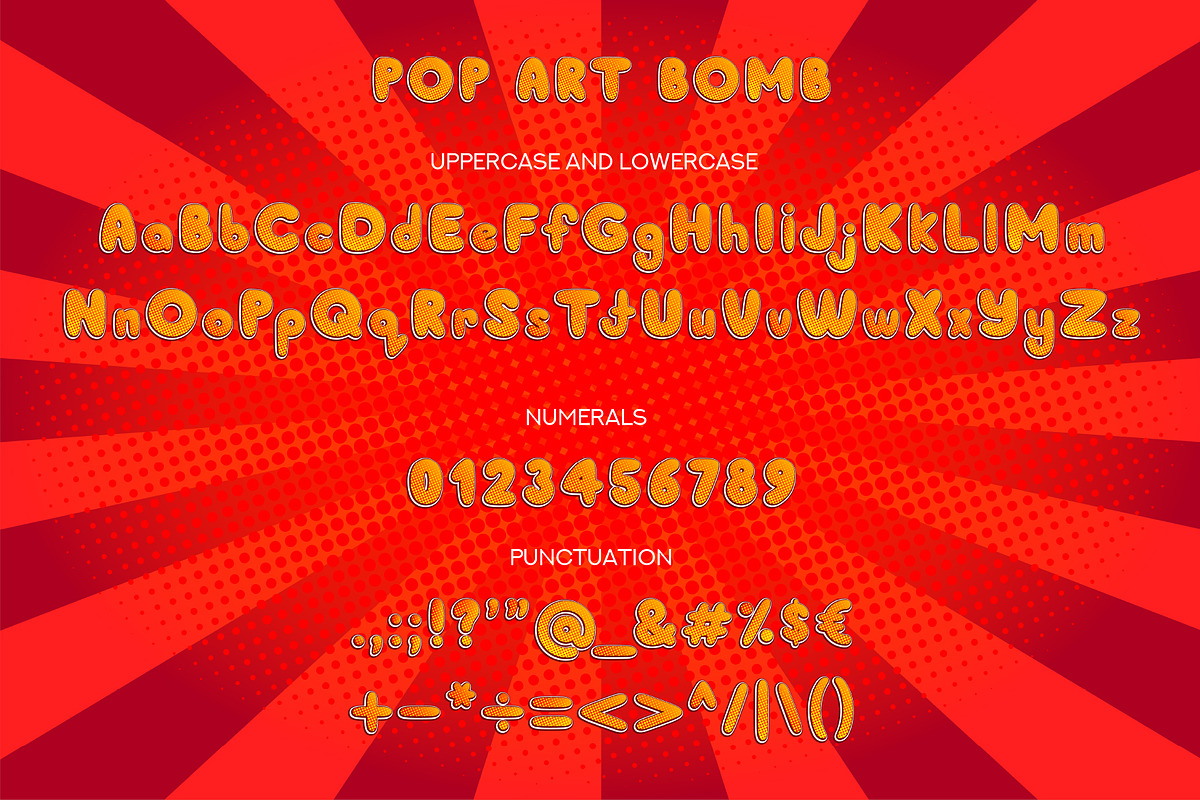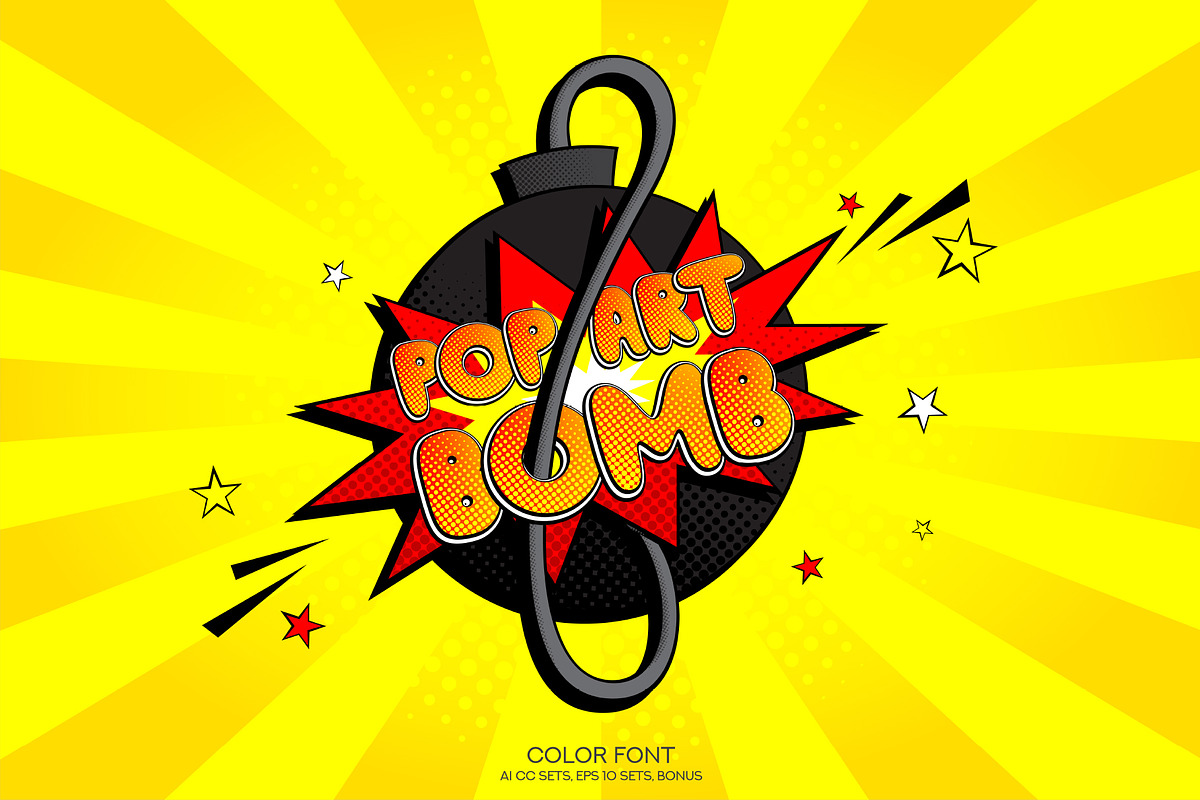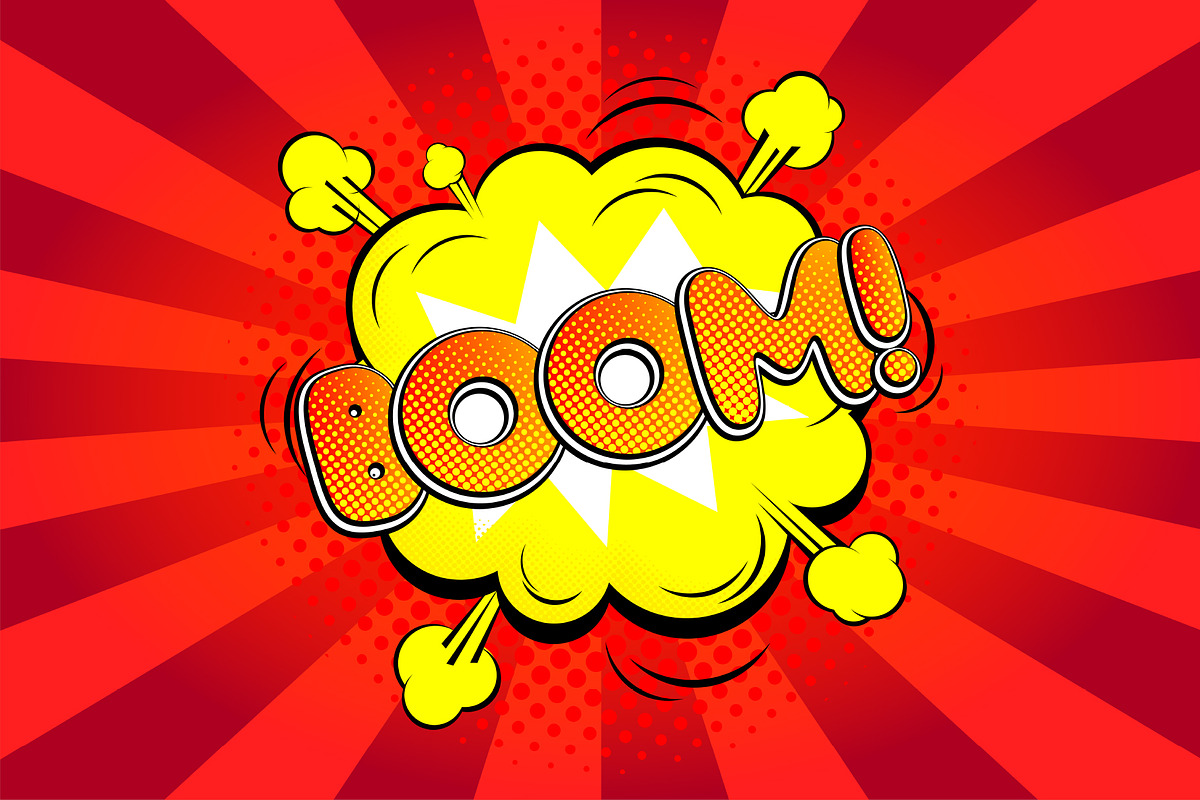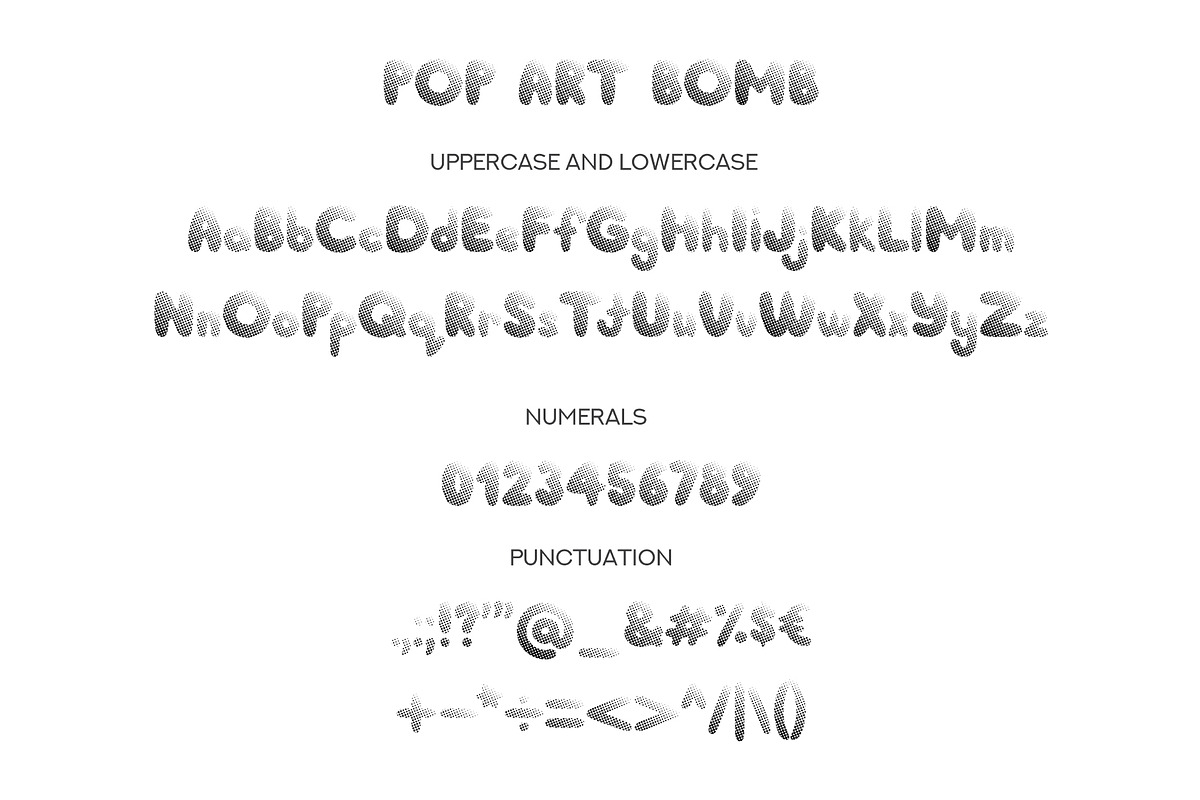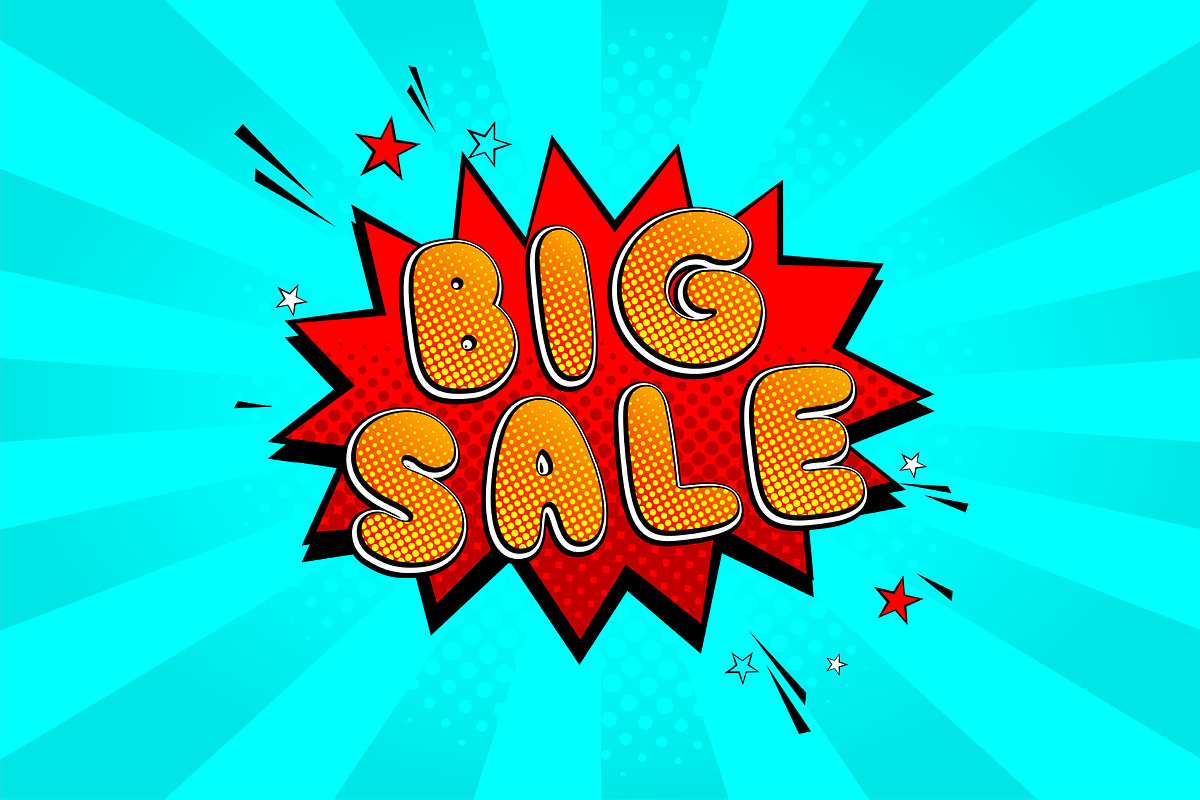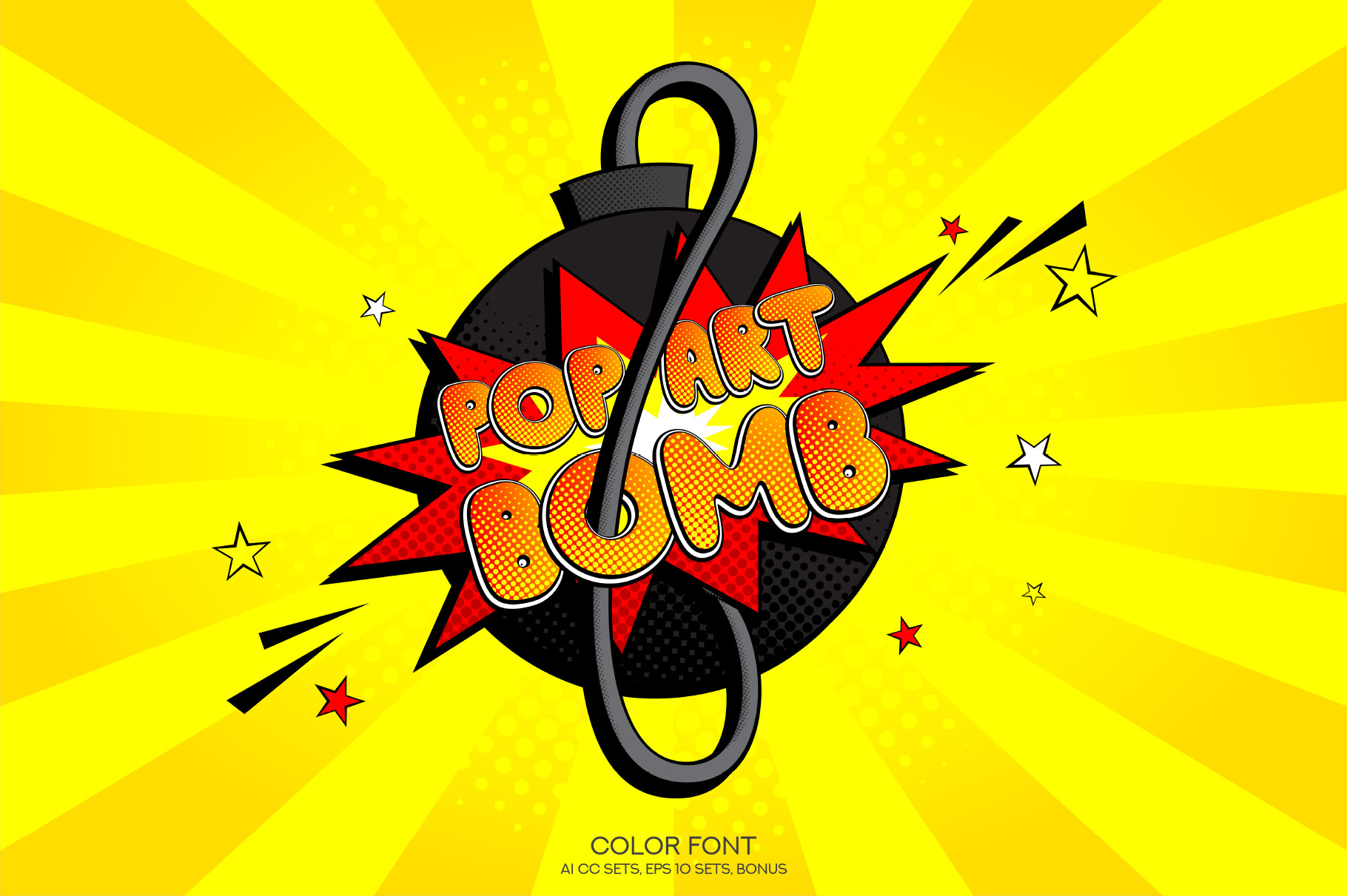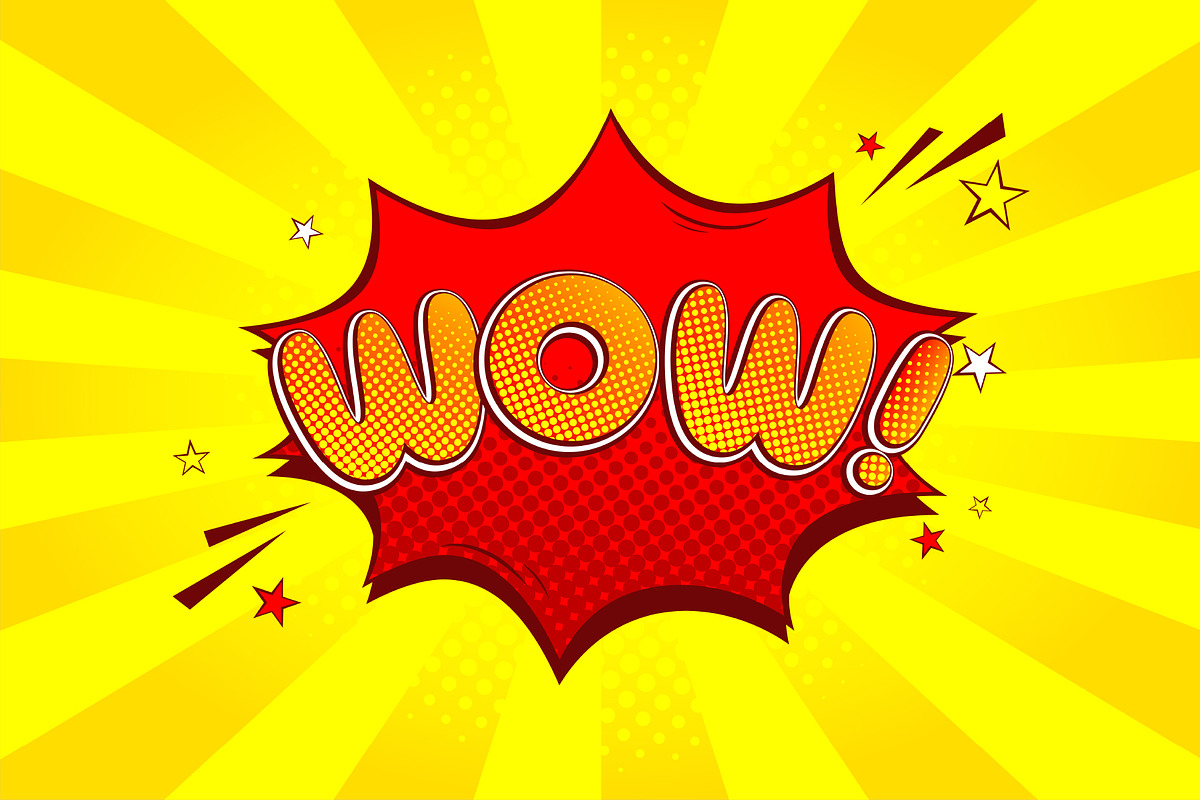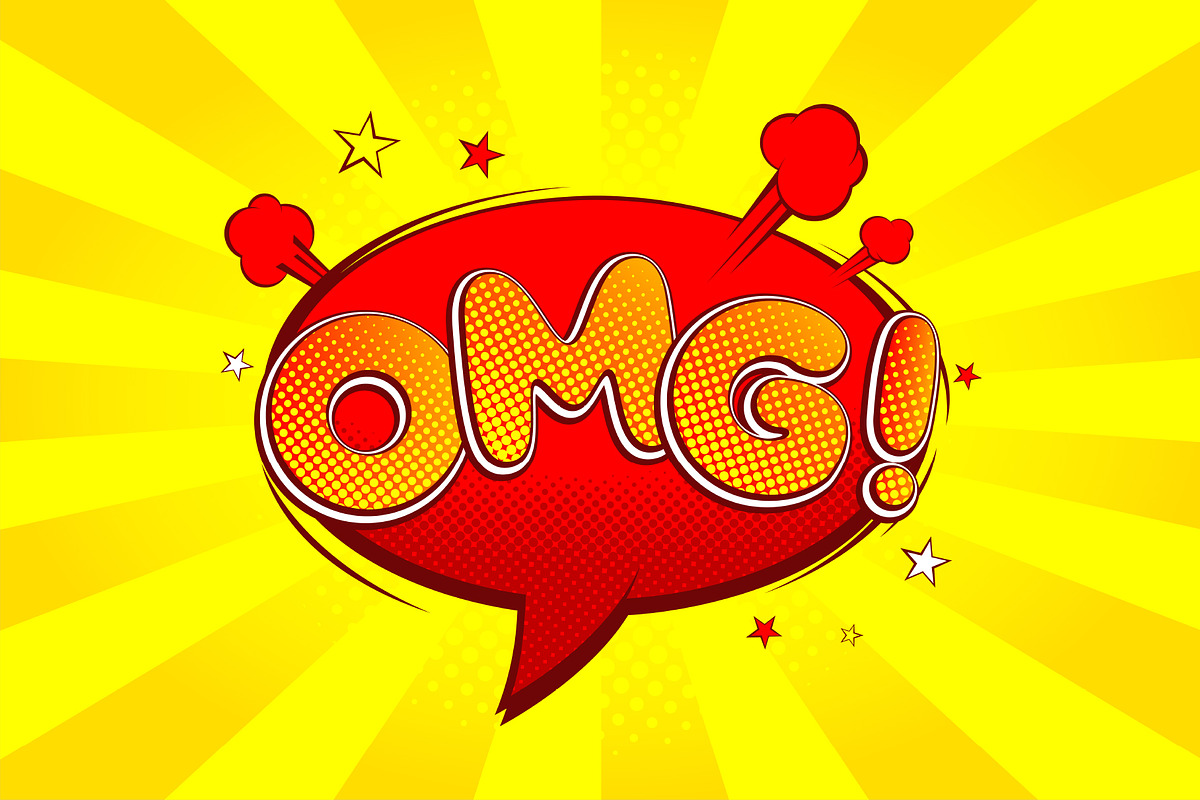
Pop Art Bomb SVG Color Font
Hello! Introducing Pop Art Bomb SVG Color Font. It is OpenType SVG color font which looks fun and unique.
Pop Art Bomb SVG Color Font a funny layered font. Each glyph has several color layers and halftone layer. Pop Art Bomb SVG Color Font is perfect for cartoon logos, short titles, children books, greeting cards, etc. Of course, you can use these fonts in other different projects.